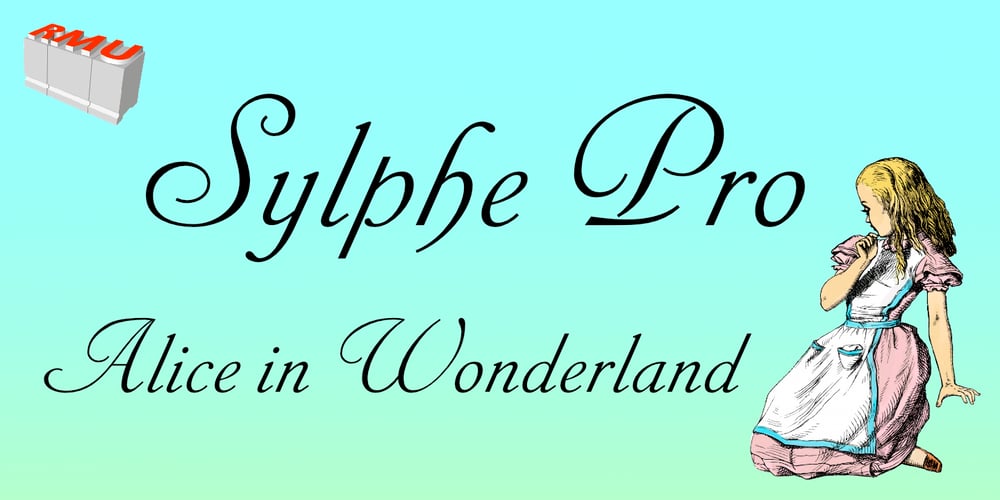
Sylphe Pro Font Family was designed by Ralph M. Unger and published by RMU. Sylphe Pro contains 1 styles and family package options. Inspired by Schelter & Giesecke’s Sylphide Sylphe Pro comes as an elegant, calligraphic Italic with the touch of the Golden Age of type design. This beautiful font encompasses most European languages, Central and West, plus Turkish.